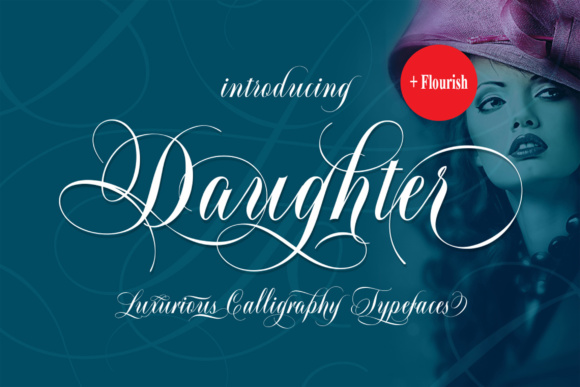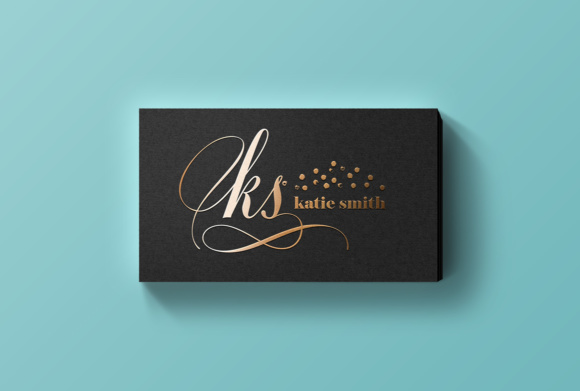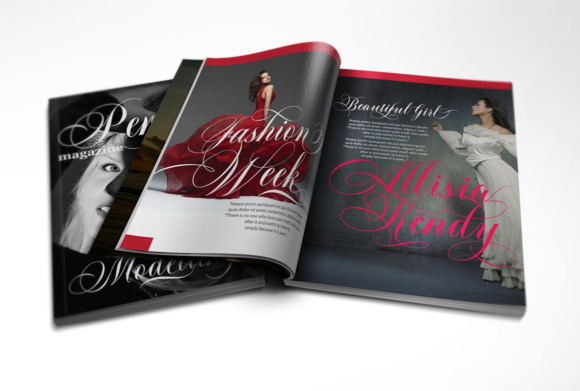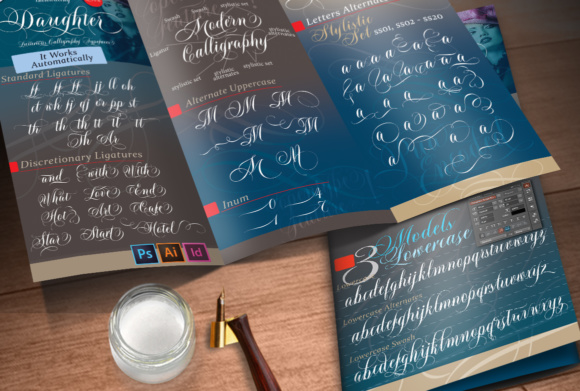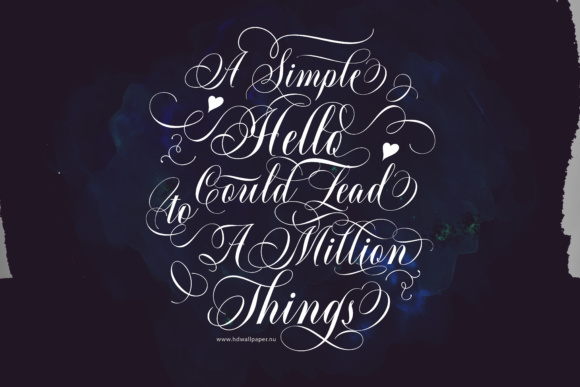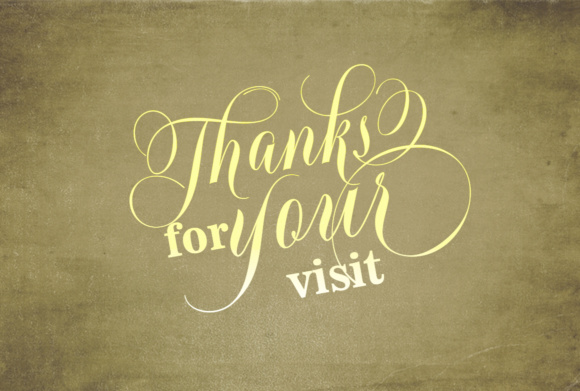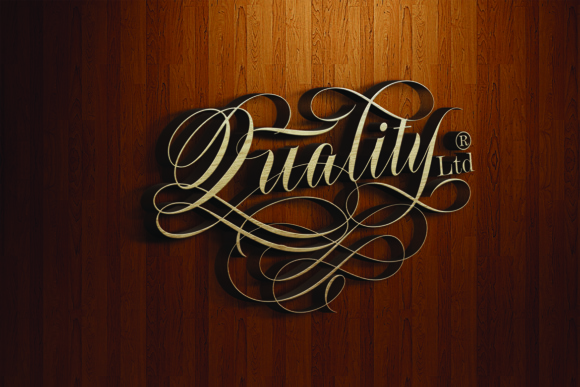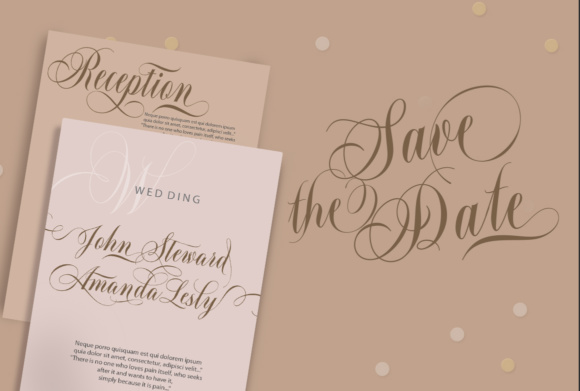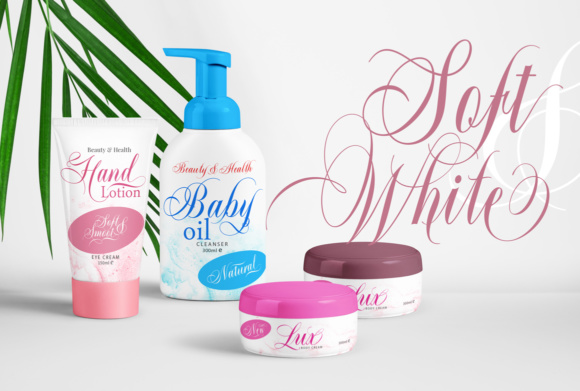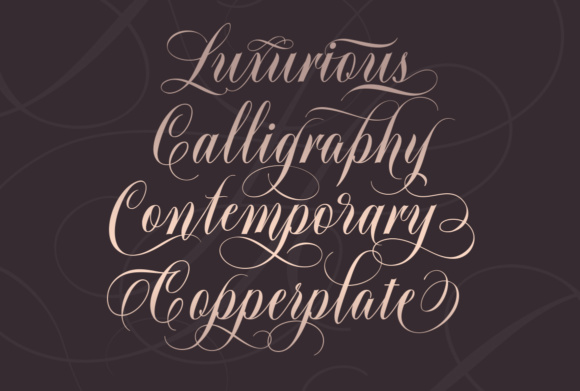
Daughter Script Font
About Daughter Script Font
Daughter is a luxurious, handwritten calligraphy typeface. It is has an elegant feel which makes it perfect for logos, quotes, invitations, signatures, and every other design that needs a feminine touch.